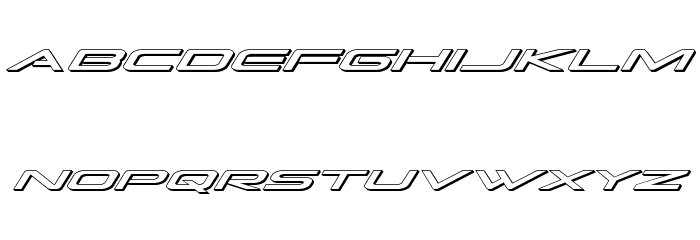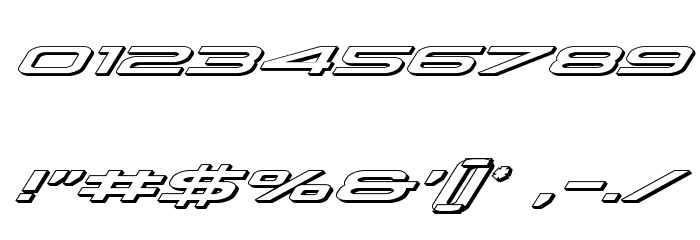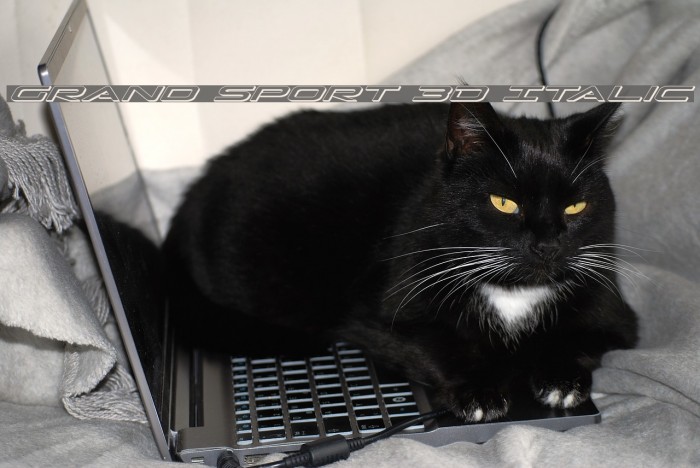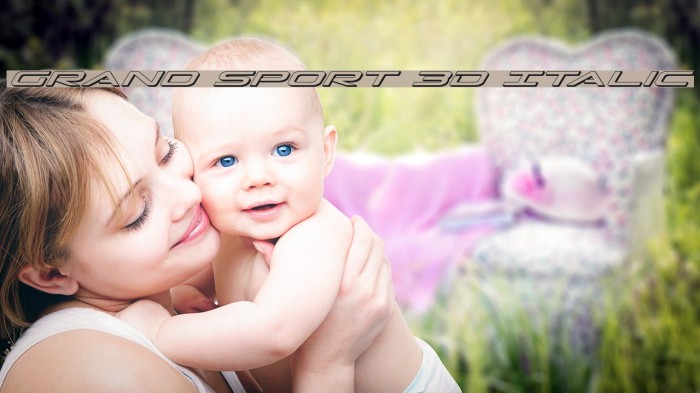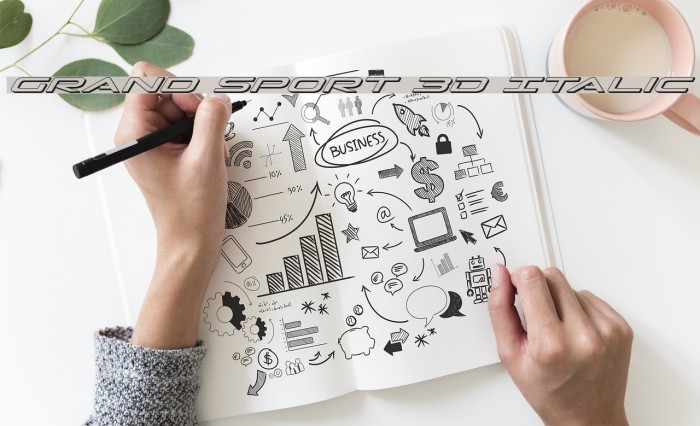
Grand Sport 3D Italic Font
This font features a dynamic and futuristic 3D design, characterized by its italicized and outlined letterforms. The geometric structure and sharp angles give it a sporty and modern appearance, making it stand out with a sense of speed and motion. The uppercase and lowercase letters maintain a consistent style, with a slight slant that enhances the italic effect. The numbers and special characters are designed to match the overall theme, providing a cohesive look across all glyphs. This font is ideal for projects that require a bold and energetic visual impact.
A dynamic 3D italic font with a futuristic and sporty design.
- Proposed Projects: Ideal for sports branding, automotive designs, video game titles, and dynamic posters.